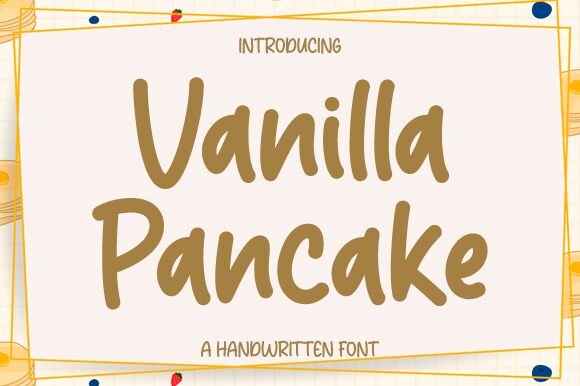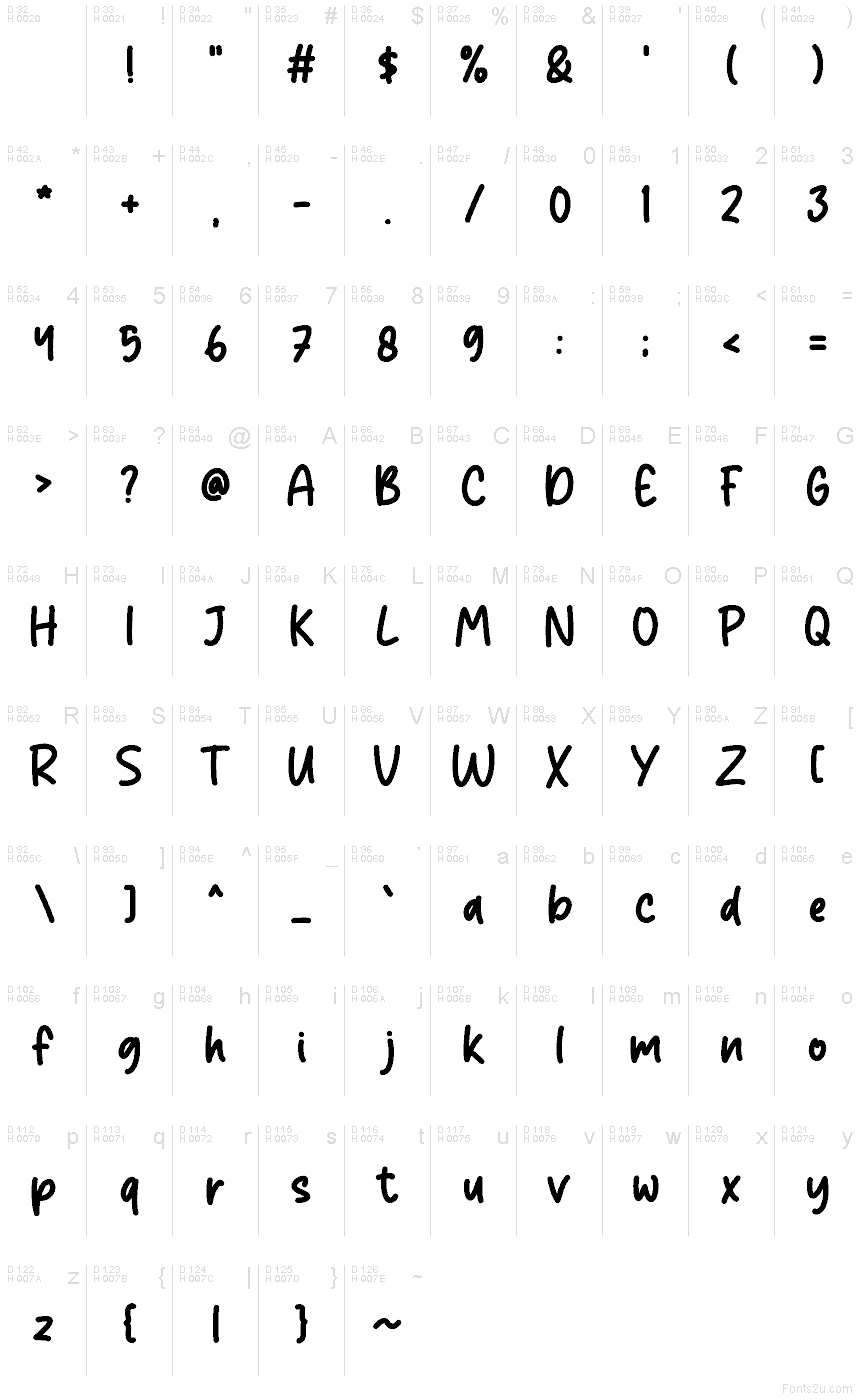
Vanilla Pancake font by Graphix Line Studio is a free handwritten brush font that solves a familiar challenge: getting cozy, human warmth without losing clarity. Its chunky, inky strokes and rounded edges feel buttery-soft, while the gentle forward tilt keeps lines moving and readable at a glance. The rhythm is steady, not messy, so headlines pop and shorter text blocks don’t collapse into scribbles.
Using Vanilla Pancake, you can bring friendly energy to cafe menus, bakery packaging, kid-focused branding, quote graphics, event flyers, and social posts. This free font shines on anything food, craft, or community-driven, where approachable voice matters. Pair it with a clean geometric sans for body copy, and give it a touch more size than your usual headline to let the brush texture breathe.